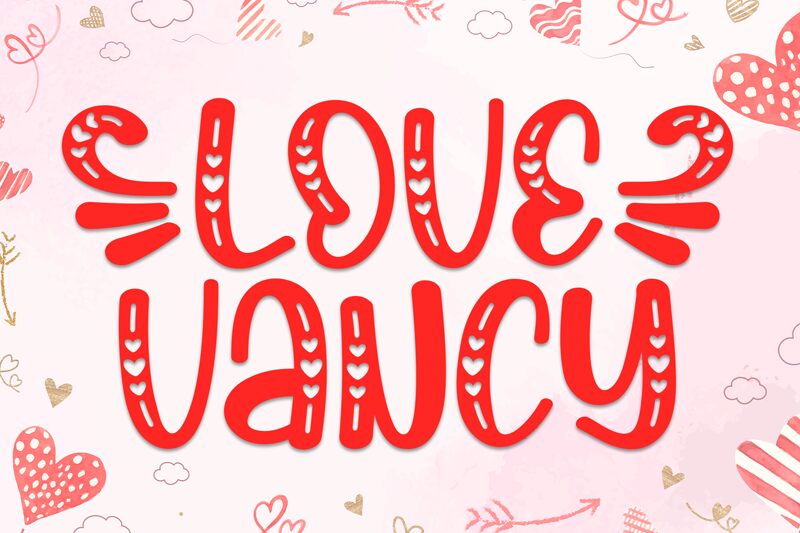
Love Vancy font by Scratchones is a free script design with whimsical and romantic characters. Letters come to life in a vibrant and contemporary style, breathing energy and flair into your projects with only a few words. The playful curves lend this font a lively and festive character, and since this font was designed with love in all its forms in mind, you will always find heart-themed elements at the center of its letters.
Pake the festive vibes for the holidays or believe in the love of a lifetime for weddings and engagement party invitations. Use Love Vancy in the designs created for the special people in your life, those of family members, friends, or romantic companions. Share stickers, cards, and printed books that carry a pleasant design using Love Vancy while keeping the magic for yourself by using this font in business cards, branding designs, coupons, and notepads.